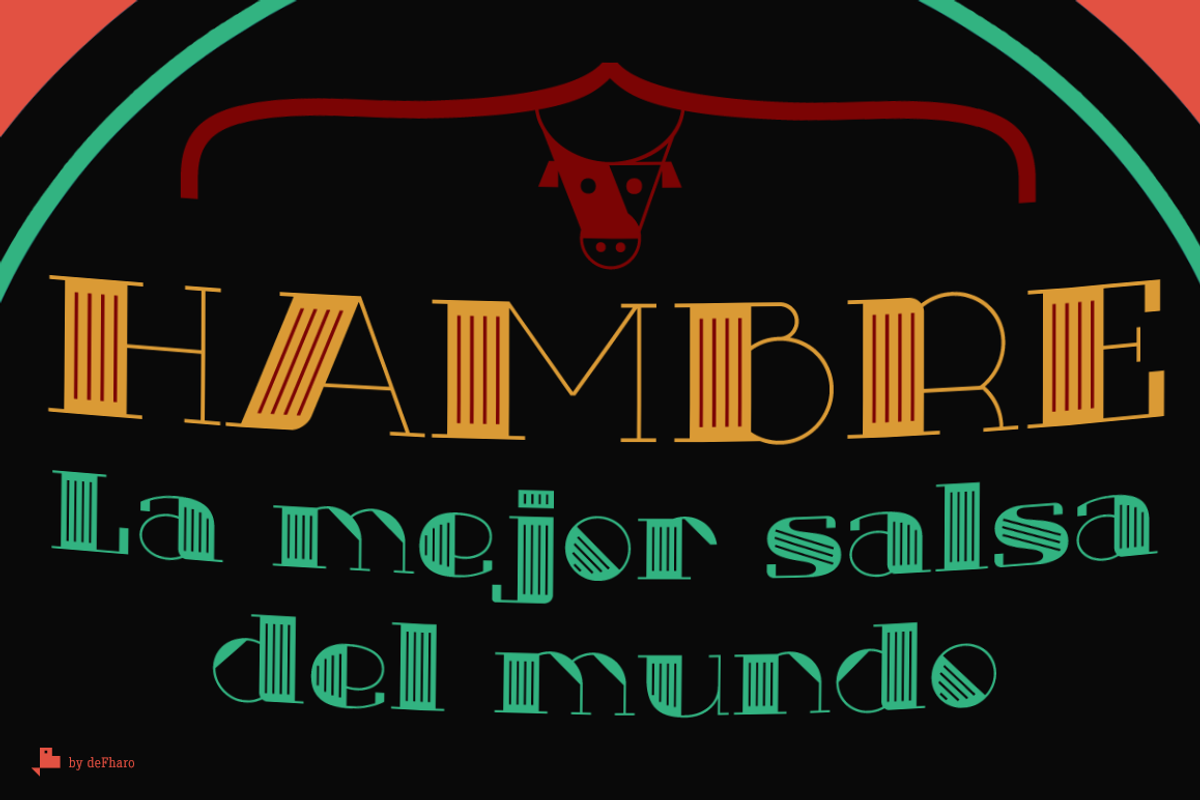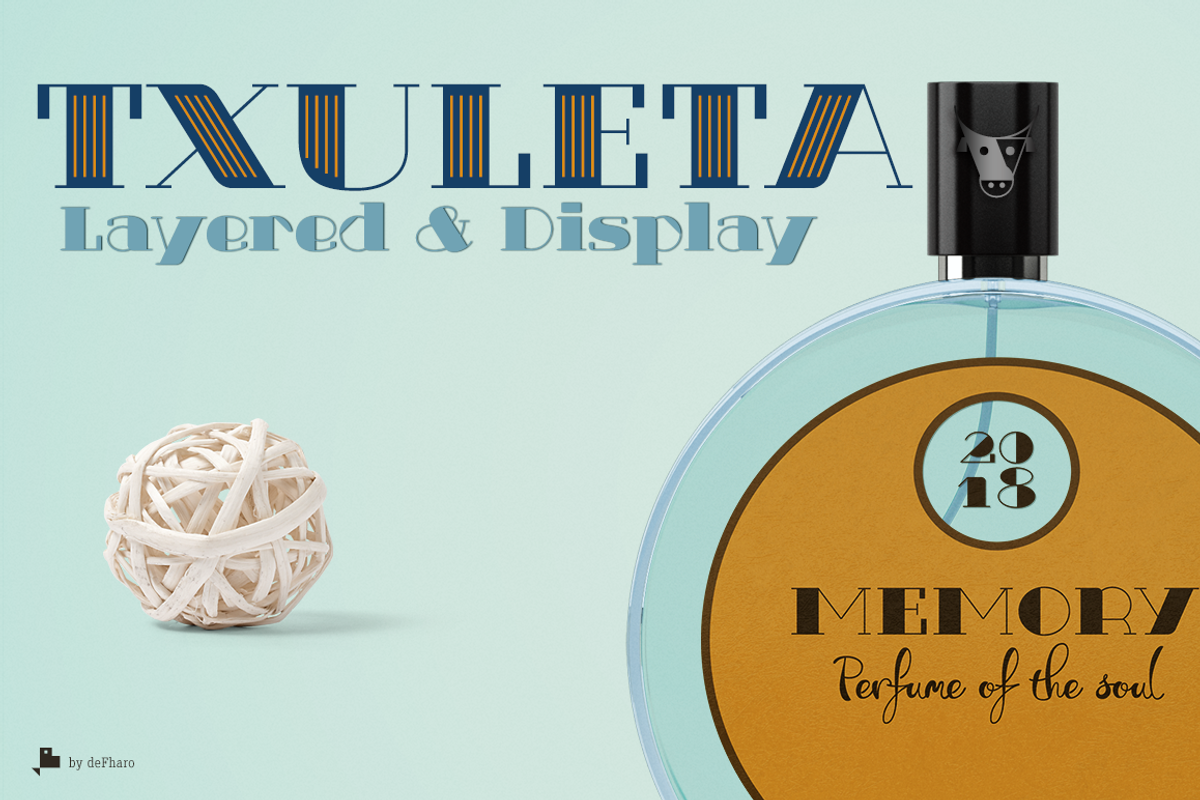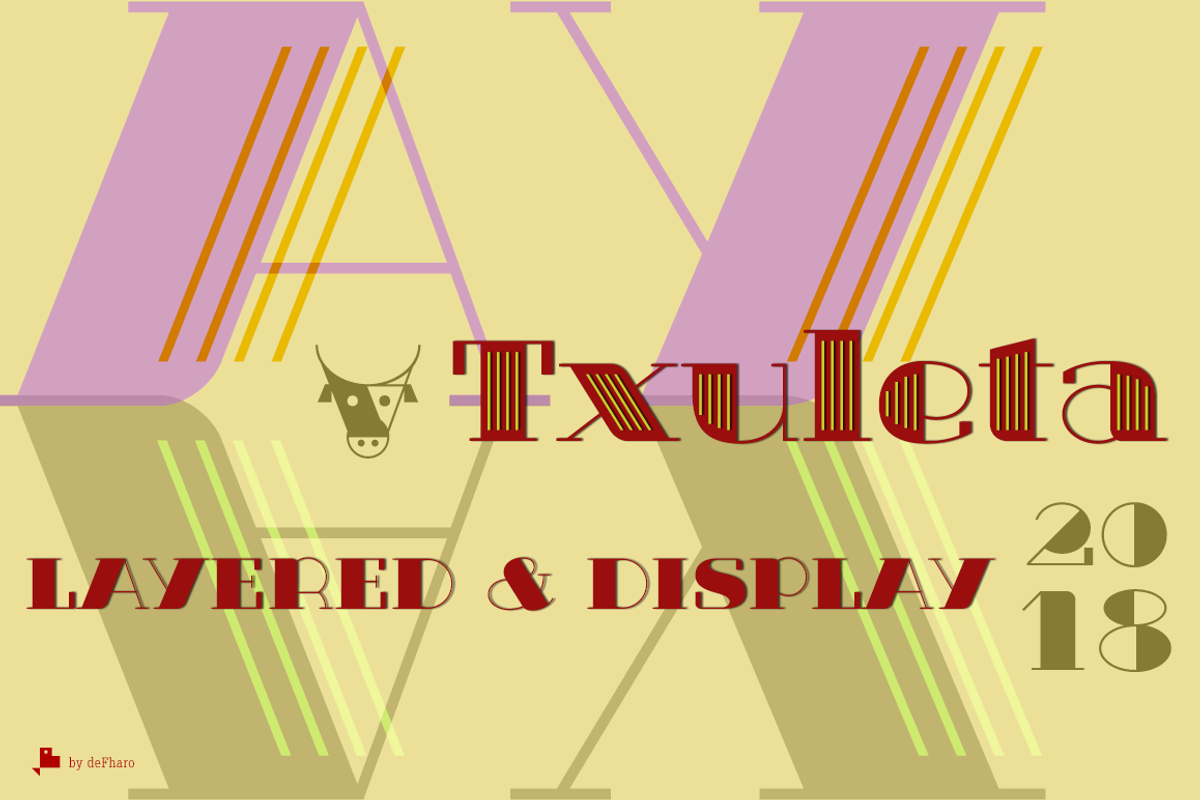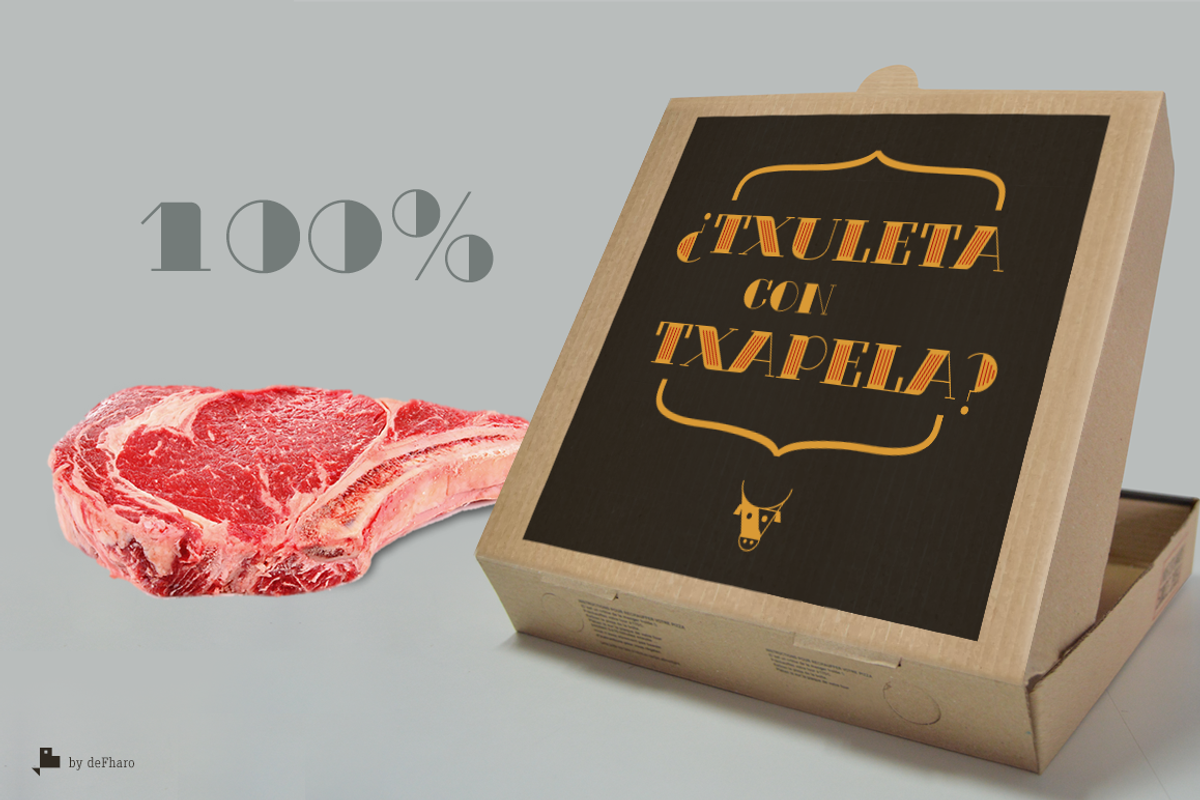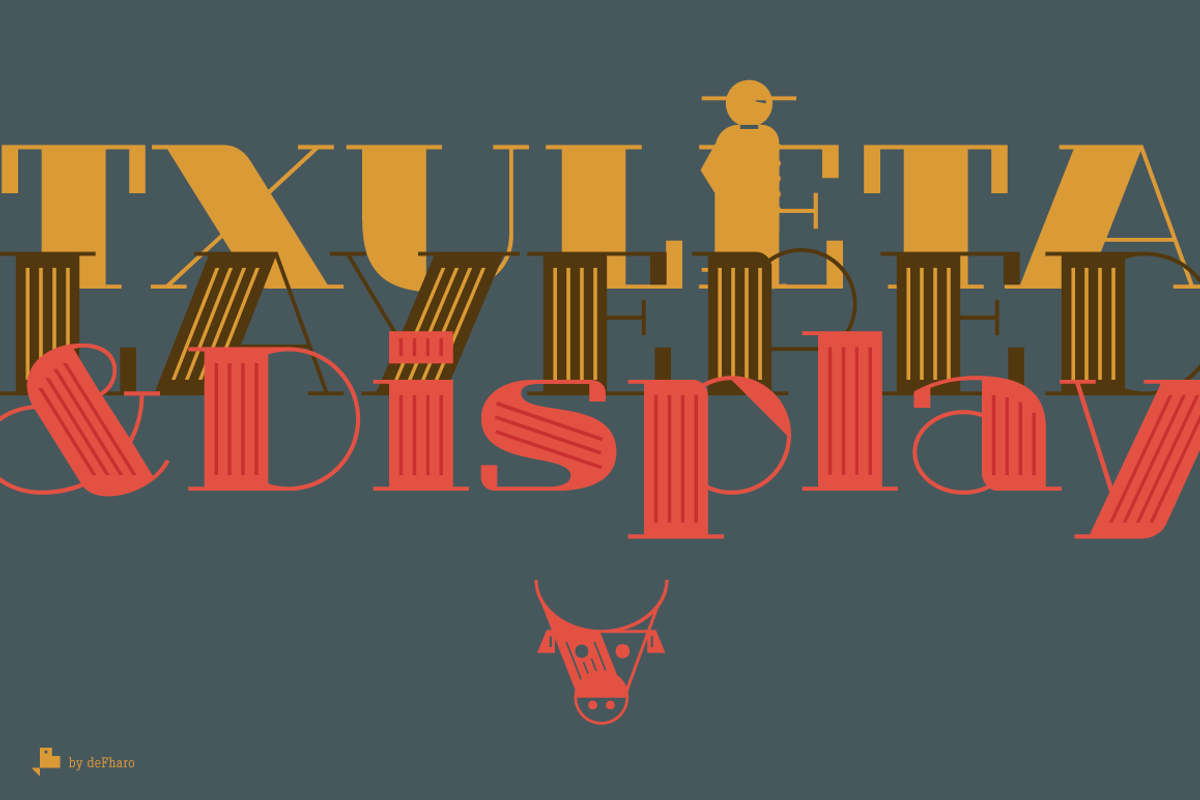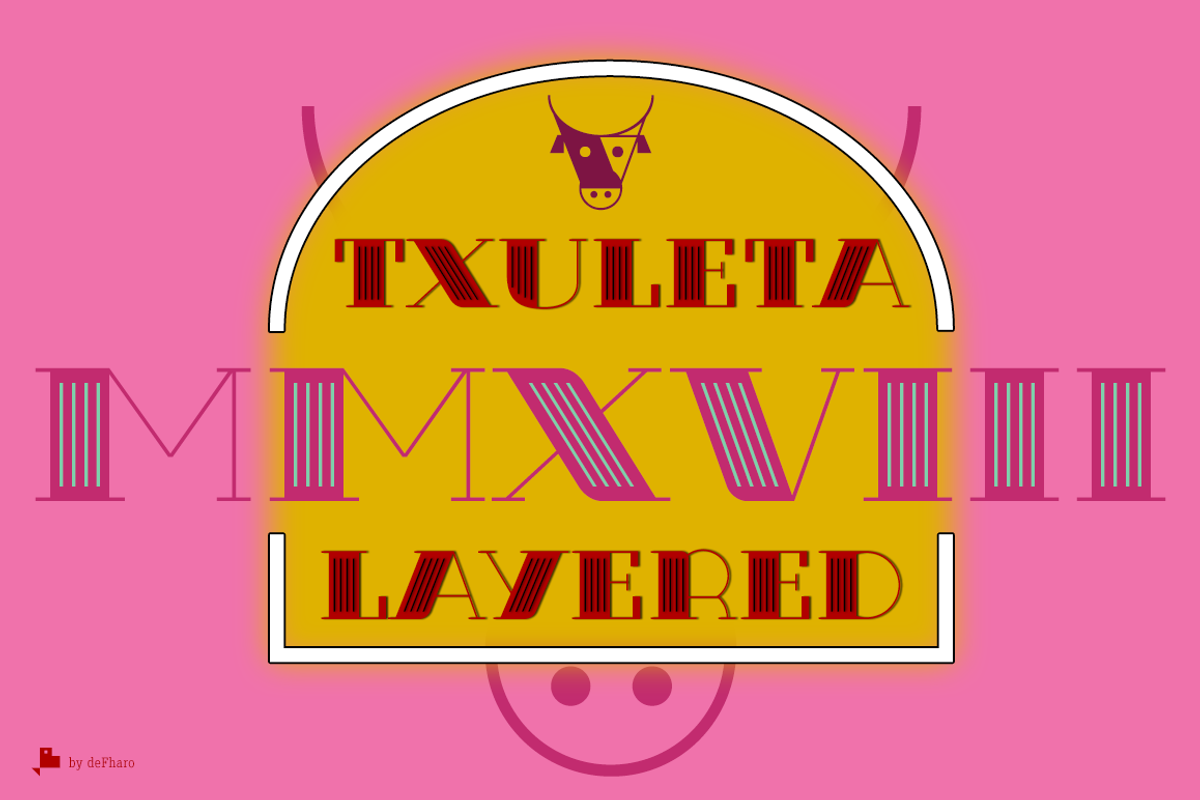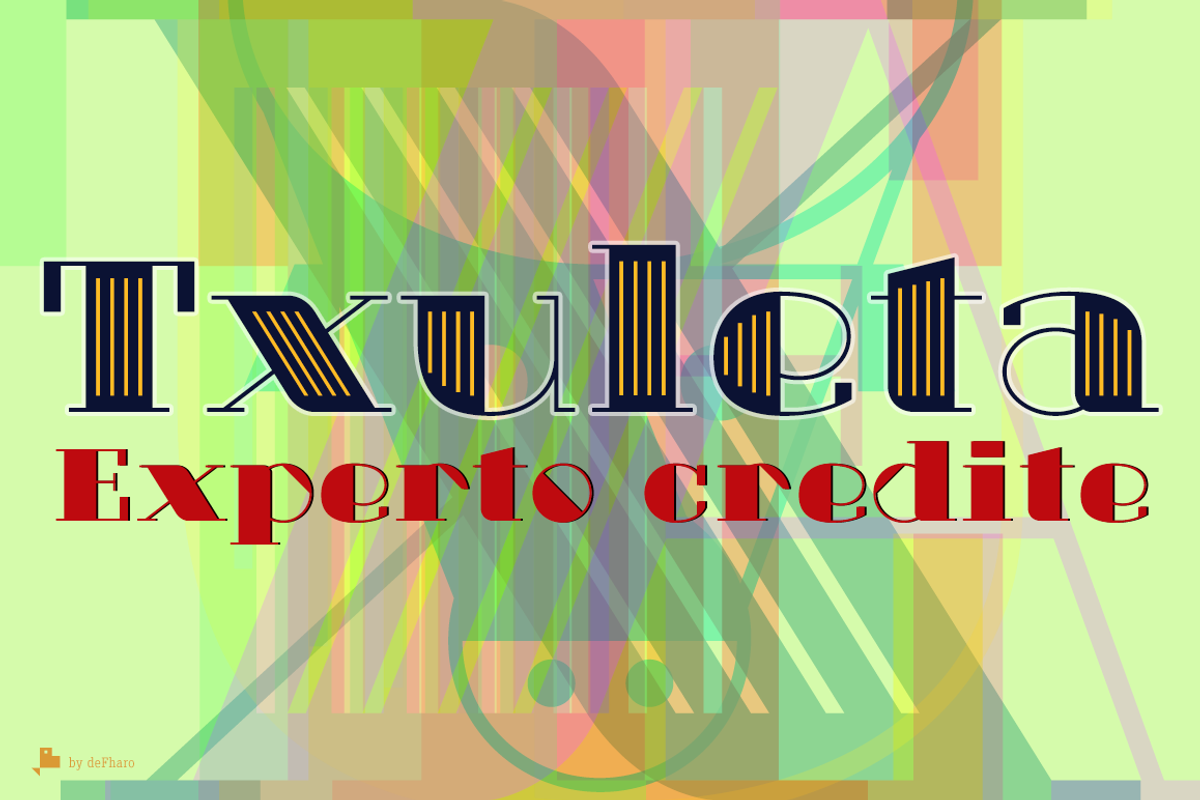
Txuleta Layered & Display -3 fonts-
Txuleta is an elegant display type of modernist style, geometric construction and wide proportion. Txuleta is a modernized descendant of the didonas typographies, with extreme contrast between antlers and thin bodonian serifs.
The typography is composed of 3 combinable styles by layers to create multicolored typographic headlines.
Regular, Deco & Lines (3 layered fonts)
Txuleta includes the symbol of Bitcoin and other of the most important cryptocurrencies.
OpenType Features: All Alternates, Additional languages, Capital Spacing, Optical Size, Standard Ligatures, Oldstyle Figures, Discretionary Ligatures, Localized Forms, Titling alternates, Kerning, Historical Forms, Extended Fractions.
- Txuleta includes alternative letters for some uppercase and lowercase letters, old style numbers and other Open Type functions.
- Txuleta Deco Regular
- Txuleta Lines Regular
- Txuleta Regular